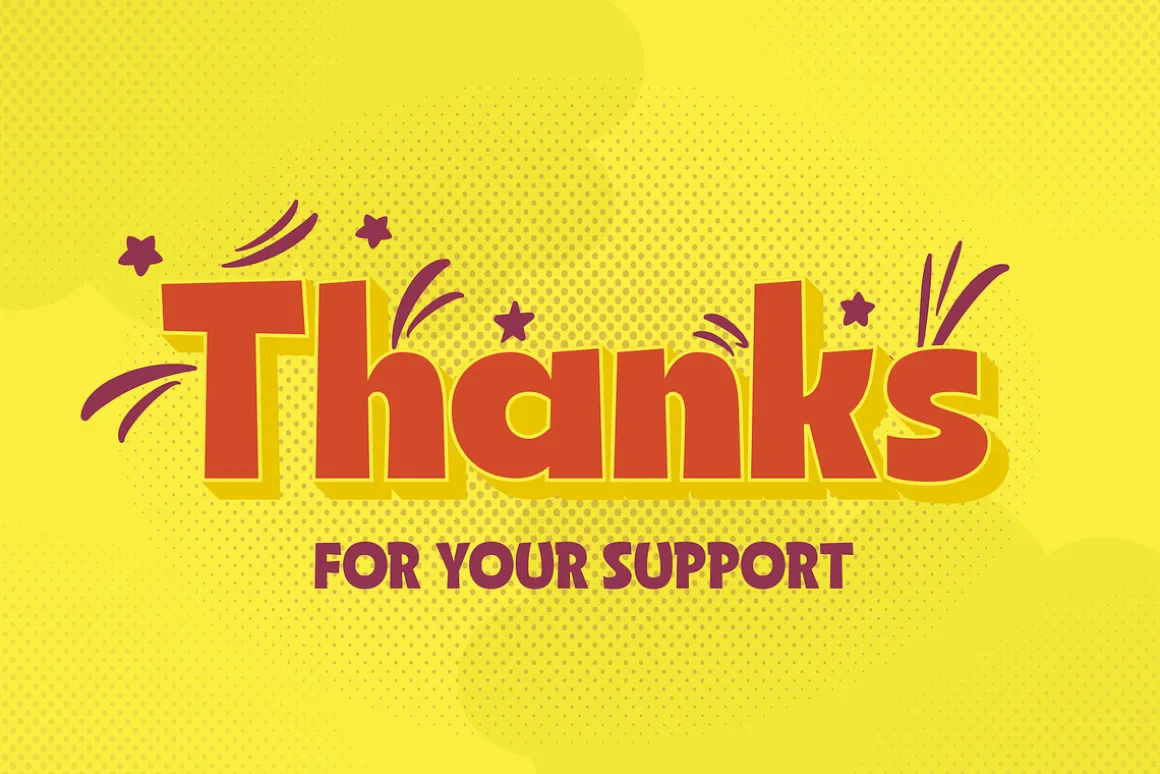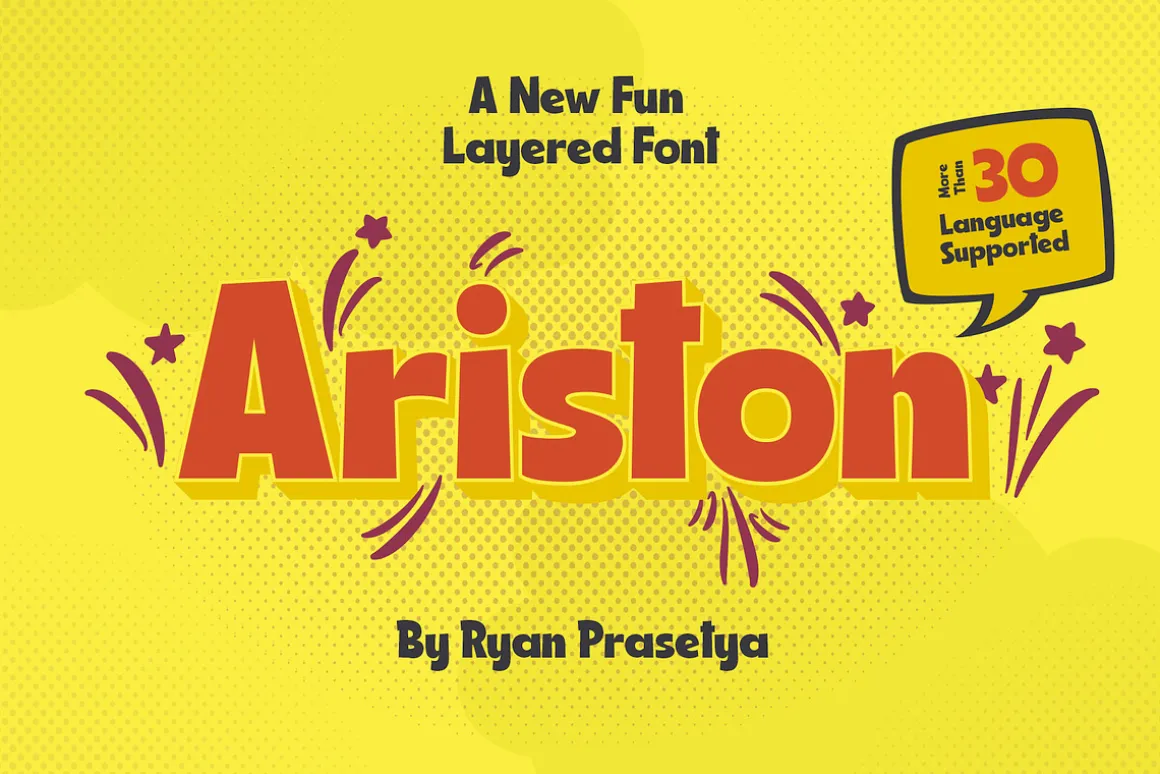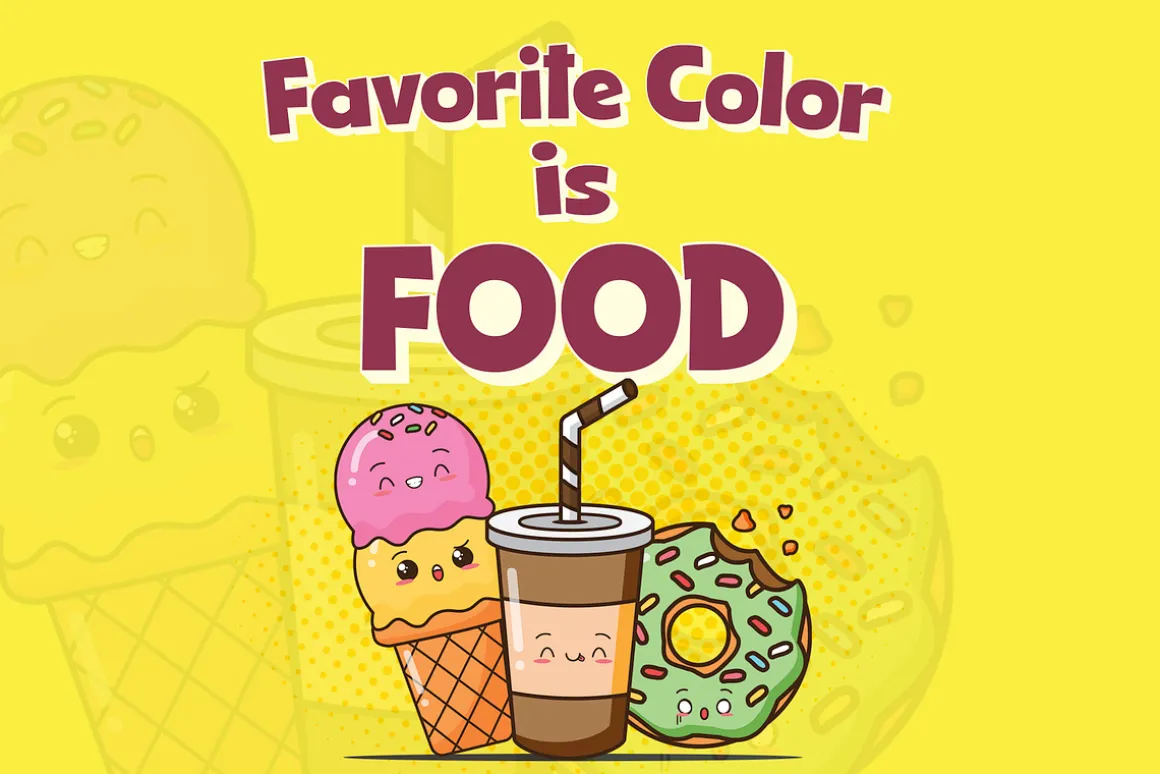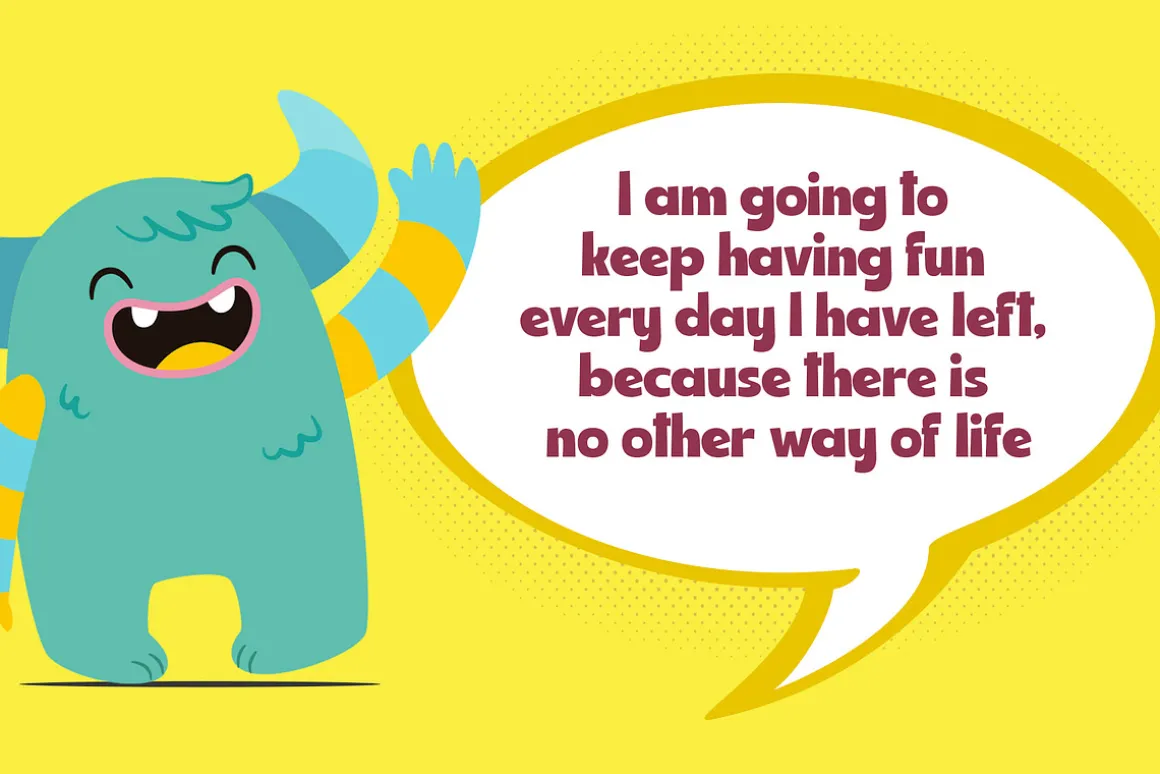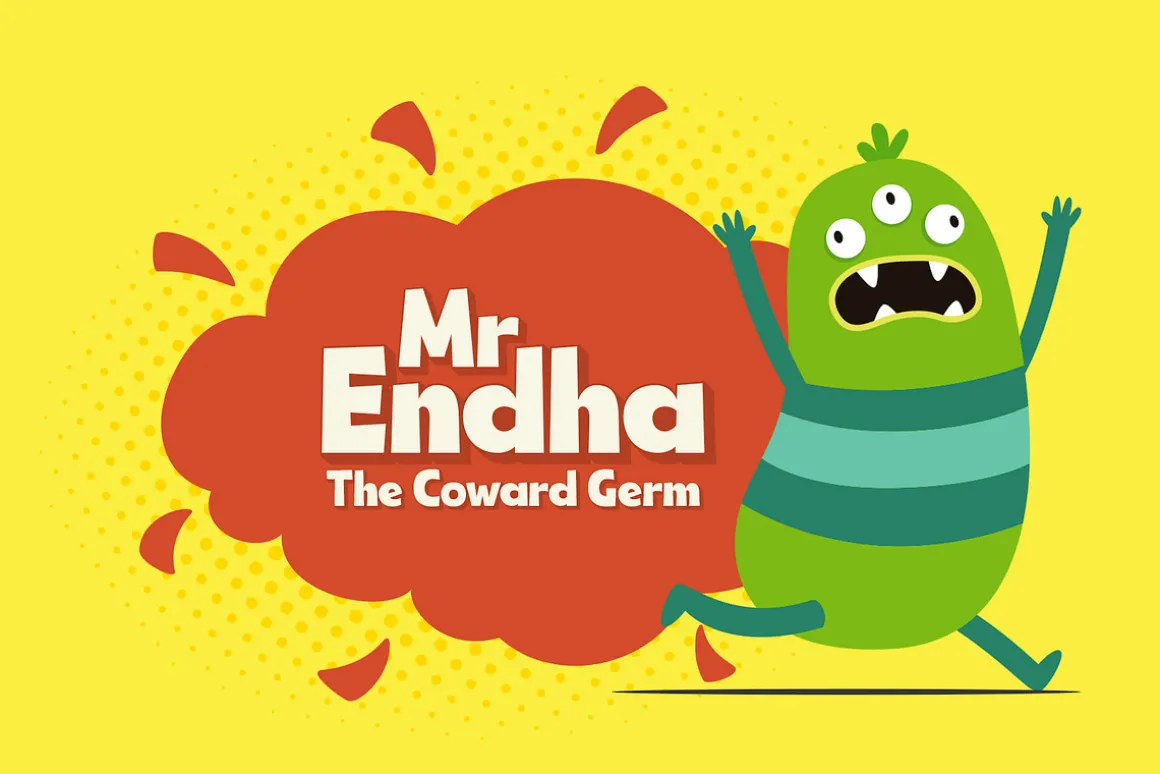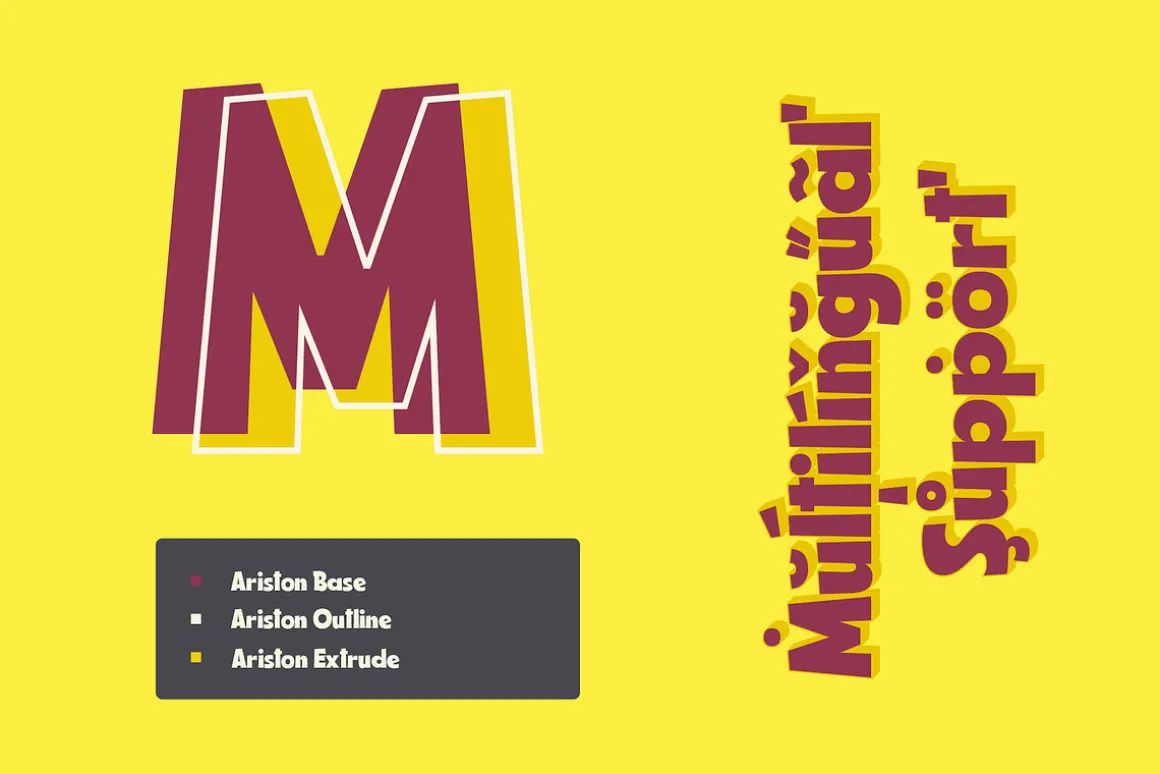
Say Hello to Ariston, a fun layered font.
Ariston is a new layered font, created for fun and for funny moment. This font created special for kid or youth tittle. If you’re kid content creator this font is very suitable for you.
Multilingual SupportLike our other font this font covered basic latin language. See list : Chiga, Congo Swahili, Cornish, Croatian, Czech, Danish, English, Estonian, Faroese, Filipino, Finnish, French, Galician, German, Gusii, Hungarian, Icelandic, Indonesian, Irish, Italian, Kabuverdianu, Kalenjin, Kinyarwanda, Luo, Luyia, Machame, Makhuwa-Meetto, Makonde, Malagasy, Malay, Manx, Morisyen, North Ndebele, Norwegian Bokmål, Norwegian Nynorsk, Nyankole, Oromo, Portuguese, Romansh, Rombo, Rundi, Rwa, Samburu, Sango, Sangu, Sena, Shambala, Shona, Slovak, Slovenian, Soga, Somali, Spanish, Swahili, Swedish, Swiss German, Taita, Teso, Turkmen, Vunjo, Zulu